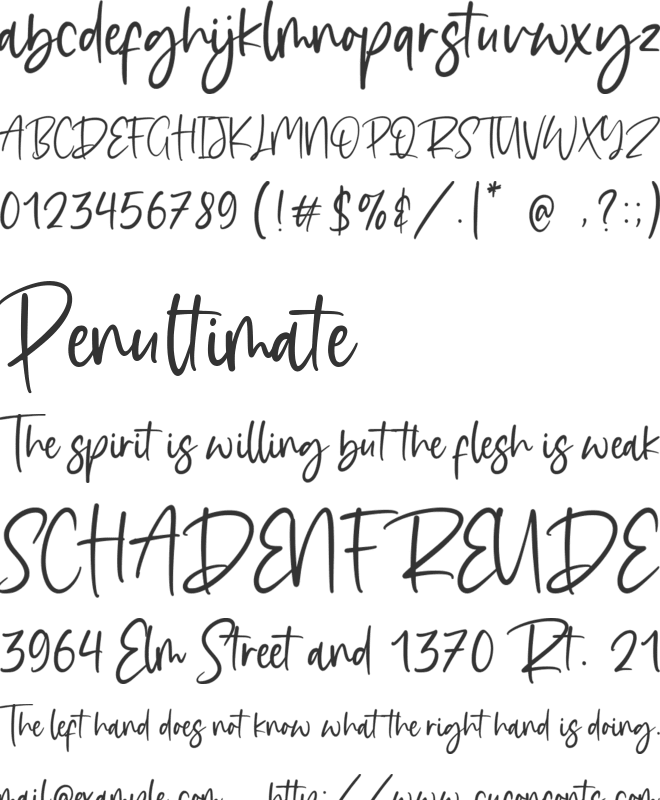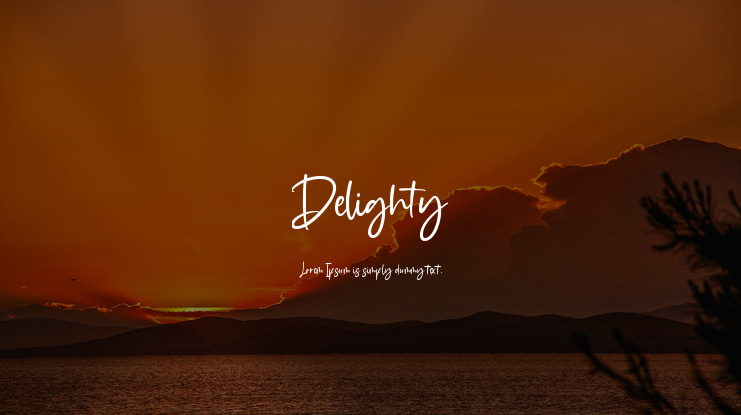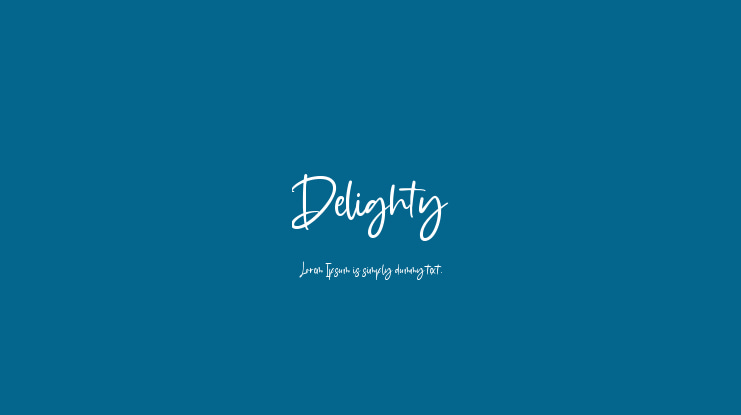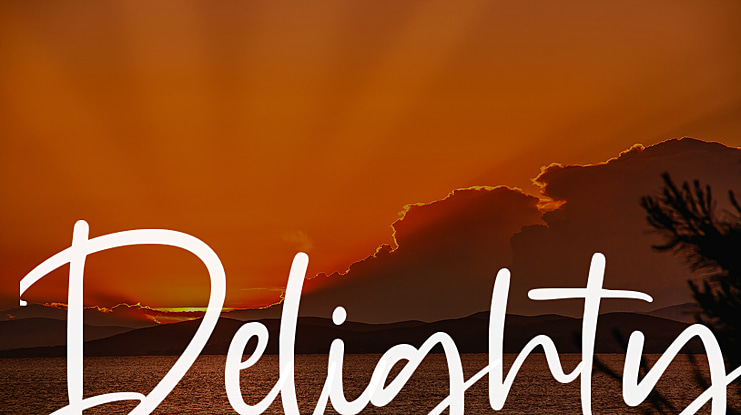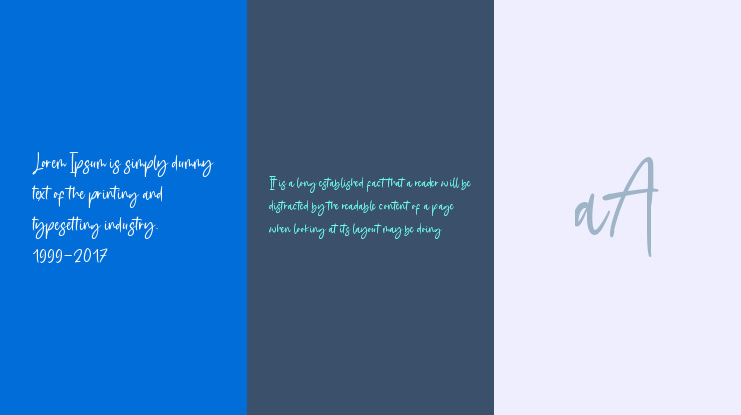
Delighty Font
Proudly Present, Delighty Font.
Delighty is a Modern Handwritten Font. This sweet font has nice smooth lines.
Delighty is perfect for product packaging, branding project, megazine, social media, wedding, or just used to express words above the background.